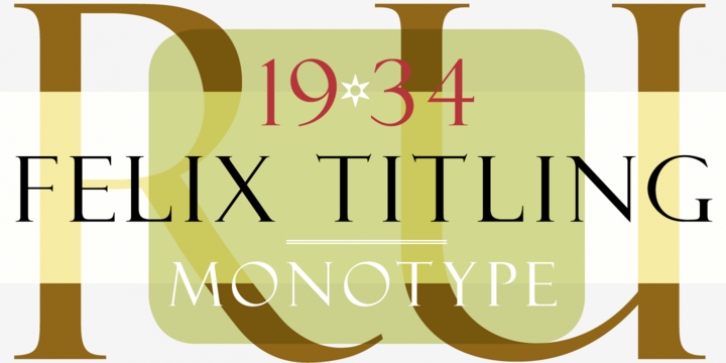
Publisher: Monotype
An all-caps titling font designed by the Monotype Drawing Office in 1934, based on an alphabet designed by Veronese calligrapher Felice Feliciano in 1463.